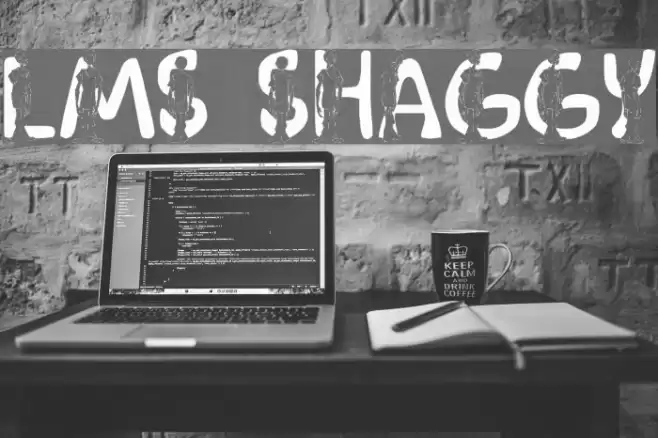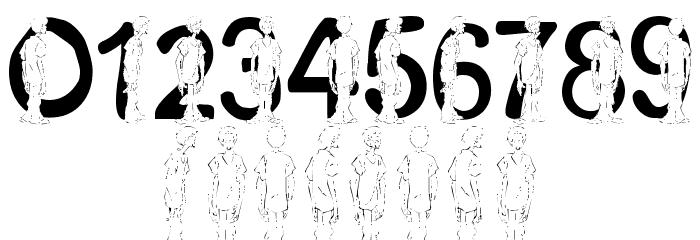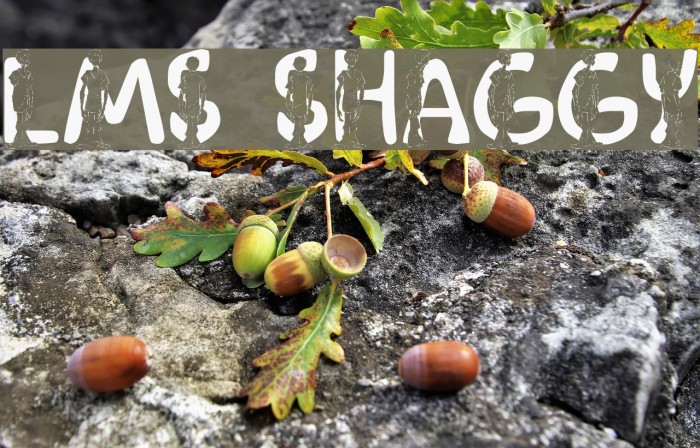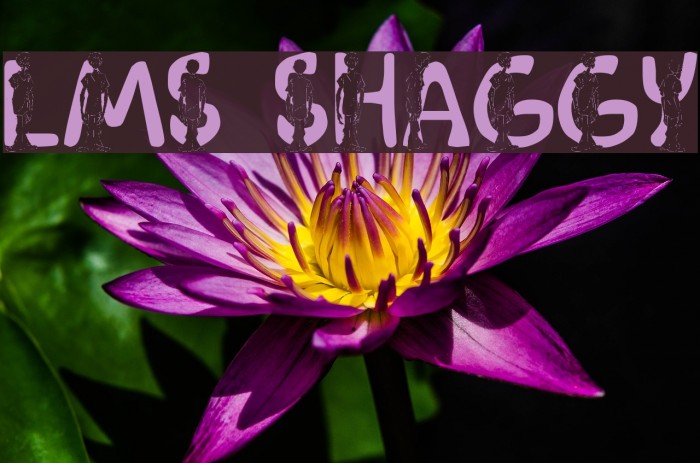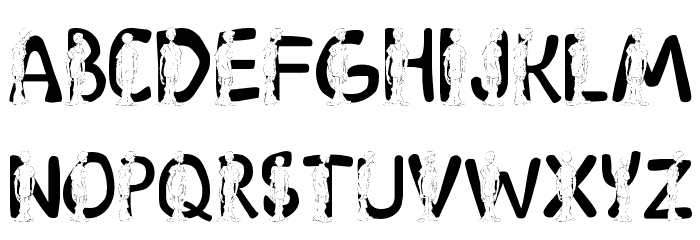
LMS Shaggy Font
LMS Shaggy Description
This playful and whimsical font features a unique design where each character is intertwined with a cartoon-like figure, adding a sense of fun and creativity. The letters are bold and rounded, with a slightly irregular shape that enhances the casual and informal style. The figures integrated into the characters are detailed and add a layer of complexity, making this font stand out as a decorative piece. It is perfect for projects that require a touch of humor and individuality, such as children's book covers, playful posters, or themed party invitations. The font maintains legibility despite its intricate design, ensuring that the text remains clear and engaging.
A playful, decorative font with cartoon figures integrated into bold, rounded characters from Uncategorized fonts.
- Proposed Projects: Ideal for children's books, playful posters, themed invitations, and creative branding.